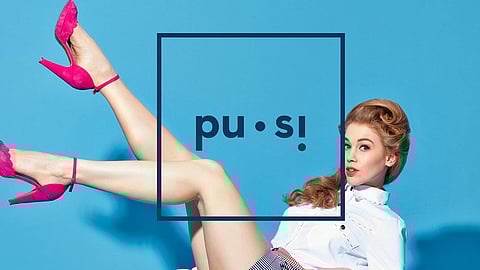
Taking a good look at the new and emerging typefaces that have made their way into the design scene across the world, we follow the fresh ones that have carved a niche for themselves and even the classic ones that are here to stay. The world of type is, indeed, an interesting one today as it continues to grow further.
The power of words cannot be undermined. Especially in these modern times when it is not just about what is said but also how it is said. And that is what leads us to take a peek at the current trends in typography where so much has evolved over the years.
3D modelling has quite effectively found its place in the design arena of today through various forms and applications. With many diverse means of executing it, the style has been widely adopted by various designers and the freshness of this medium to innovate is what has ensured it stays in vogue.
Designed by JeanPierre Le Roux
Designed by PICTOGLAZE .
Designed by JeanPierre Le Roux
The classic appeal of Serif typefaces has kept itself alive, not fading away under the oncoming of other trending fonts that have come into the picture during the recent few years. The grace and ease with which this type flows are what has kept its exuberance alive. Truly 'beautiful and timeless'.
Designed by Moshik Nadav Typography
Bold typography has been here through the ages and is here to stay. Bold is, indeed, beautiful. It has the capacity to garner the attention of its audience and even engage it in the process. Who said bold is too loud? Not in 2018, at least.
Designed by Rudmer van Hulzen
Designed by Justin Poulter
The 'Custom' way has found a place for itself across all areas, forms and modes of design. Freedom and the ability these fonts provides are hard to mimic even as it is applied to suit different contexts. Such versatility is difficult to achieve otherwise, which is why the custom font is so in trend.
Designed by Moshik Nadav Typography
Designed by Lorena G
Geometry is the keystone of all things design and functional. The Geometric Type, in the very same context, is unlikely to get outdated even in the modern times of 2018. One that cannot be ignored or sidelined, expect to see it executed on more than just one occasion.
Designed by Lumiko
There is space for experiments in every sphere, isn't there? So in the case of type, experimental typography has emerged as the new thing of today. It runs without rule and produces some stunning results in effect. The new winner on the block, this one.
Designed by Krzysztof Iwanski
Designed by Josh Schaub
No matter how great the virtual gets, it shall never overcome the real. That is why the effects of reality have made their way into the font world via typography featuring real-life elements. Font carved around everyday situations, essentials and people is certainly one new visual to keep an eye on.
Designed by Krzysztof Iwanski
The not-so-neat typography has gained great acknowledgement and thus more presence in the recent few years as it continues to grow. With its fashionable and stylish appeal, it makes a lasting and relevant impact on more than just a few people. Who said all must be only in 'order'!
Designed by Akatre Studio
Designed by MONK Scriptorium